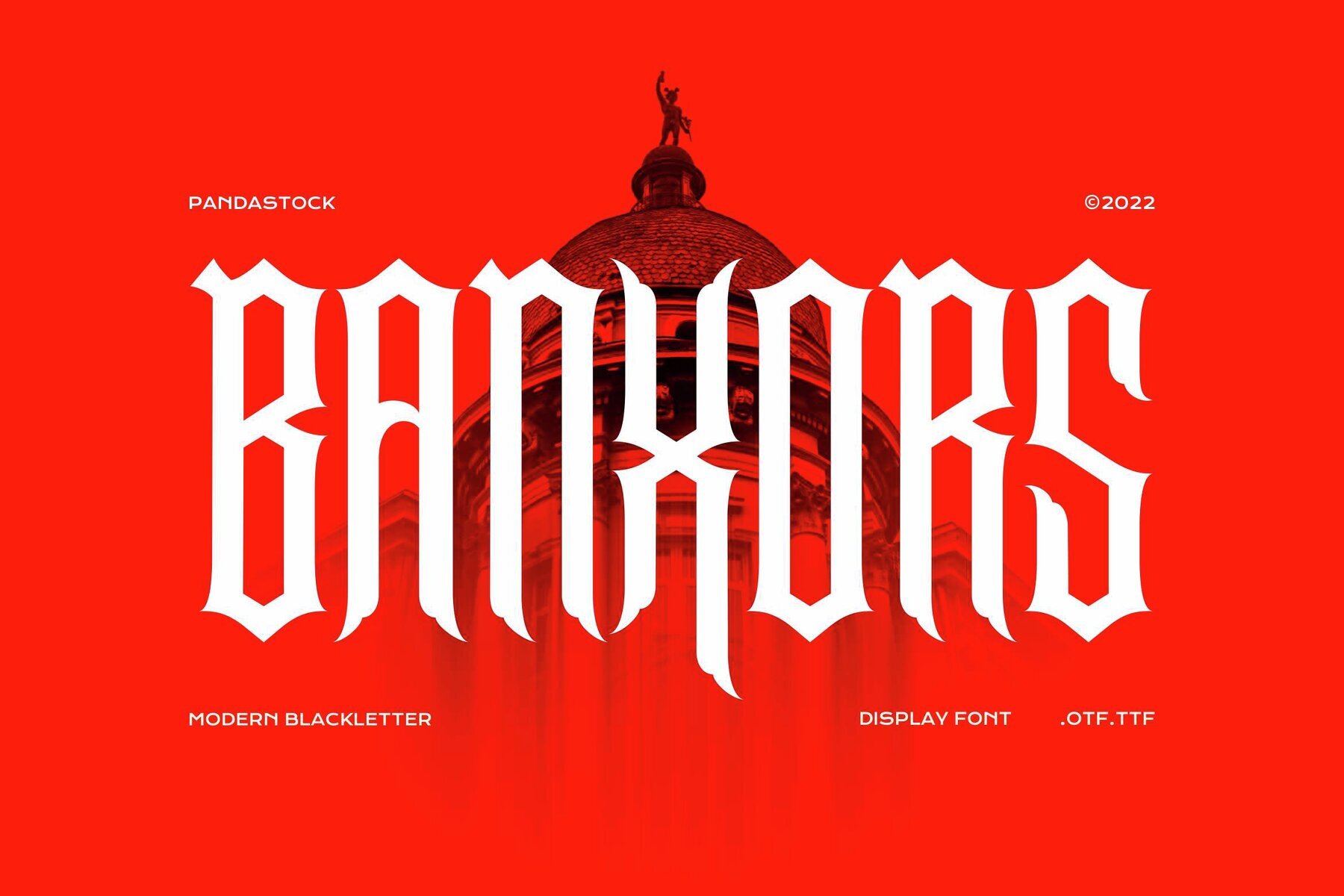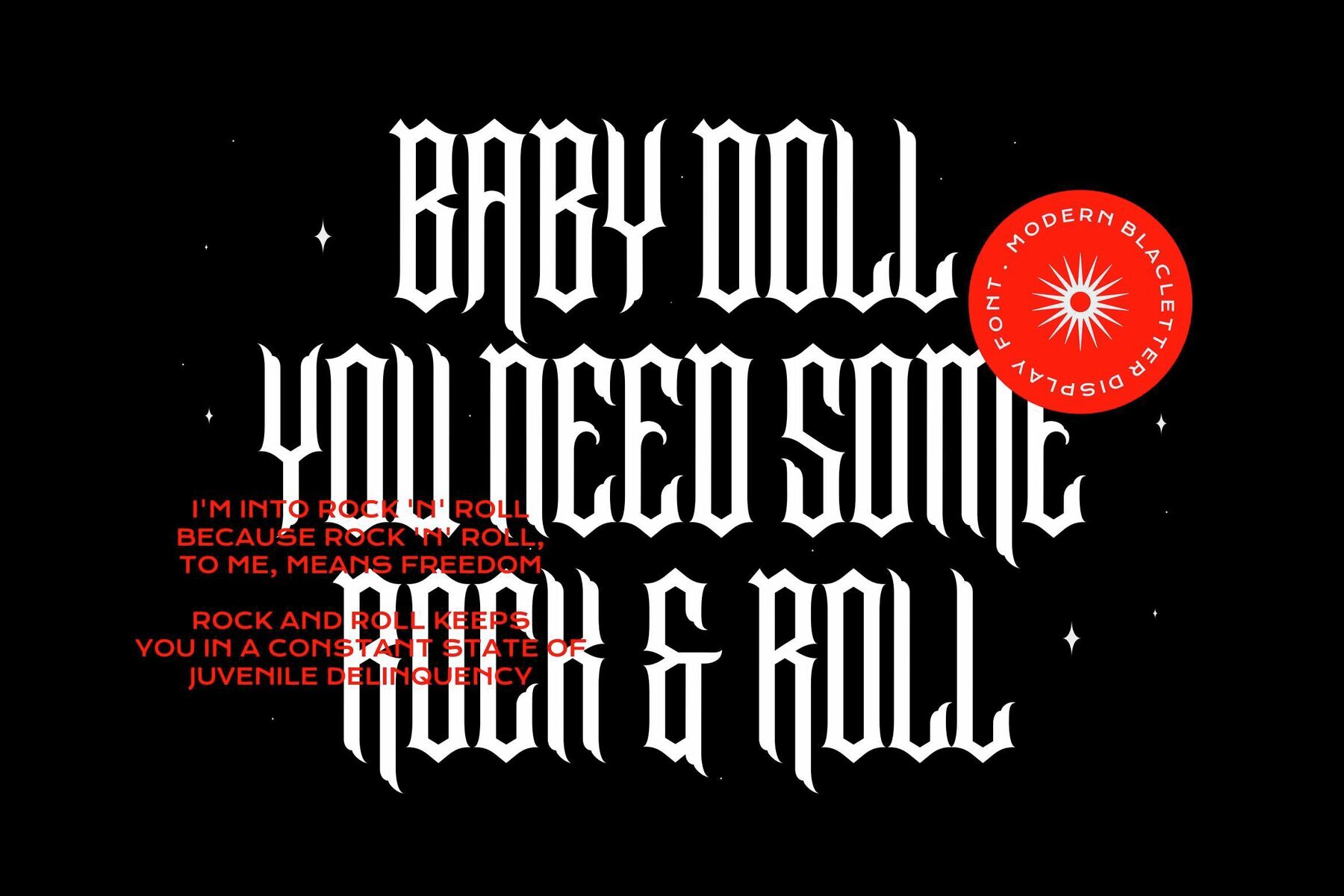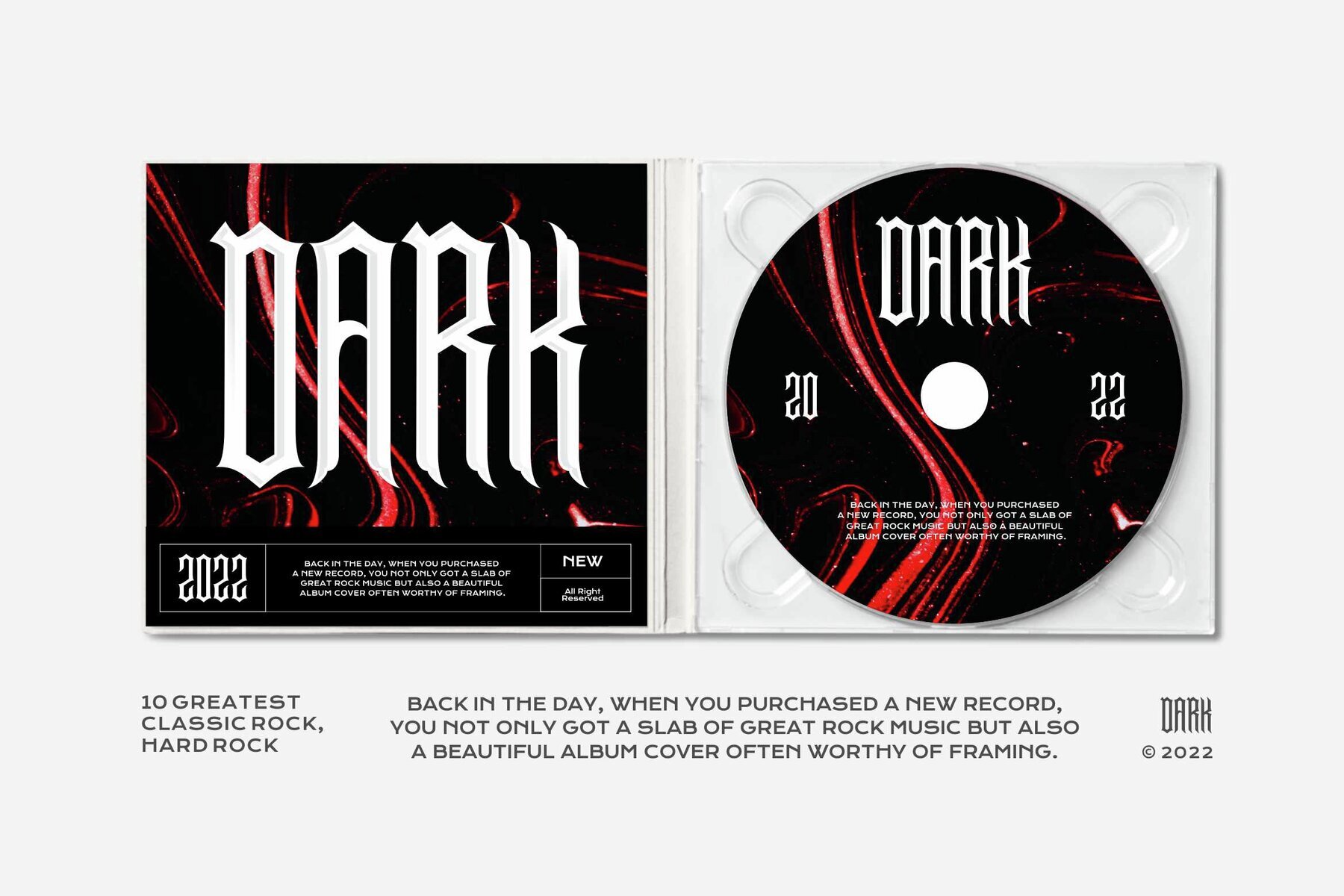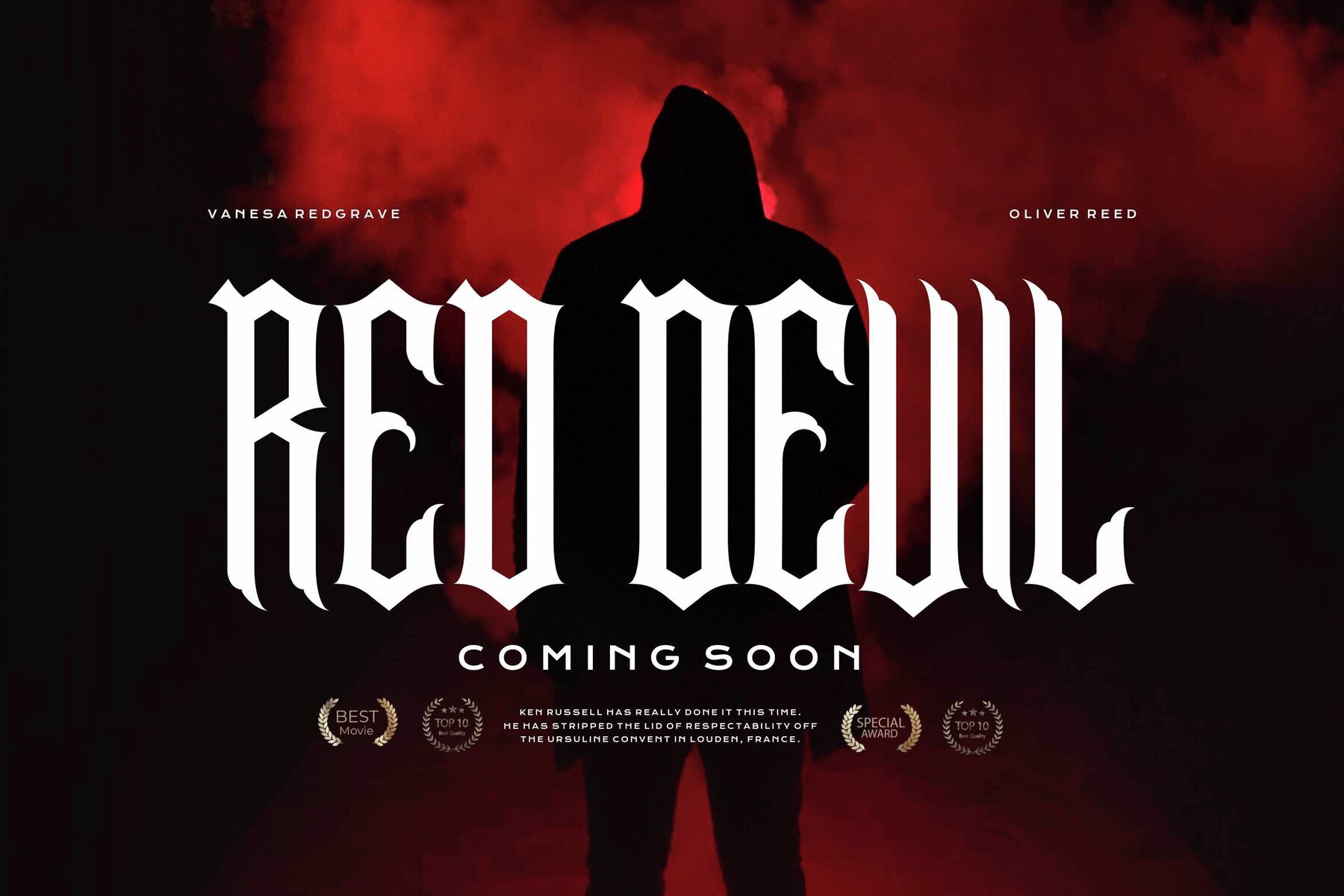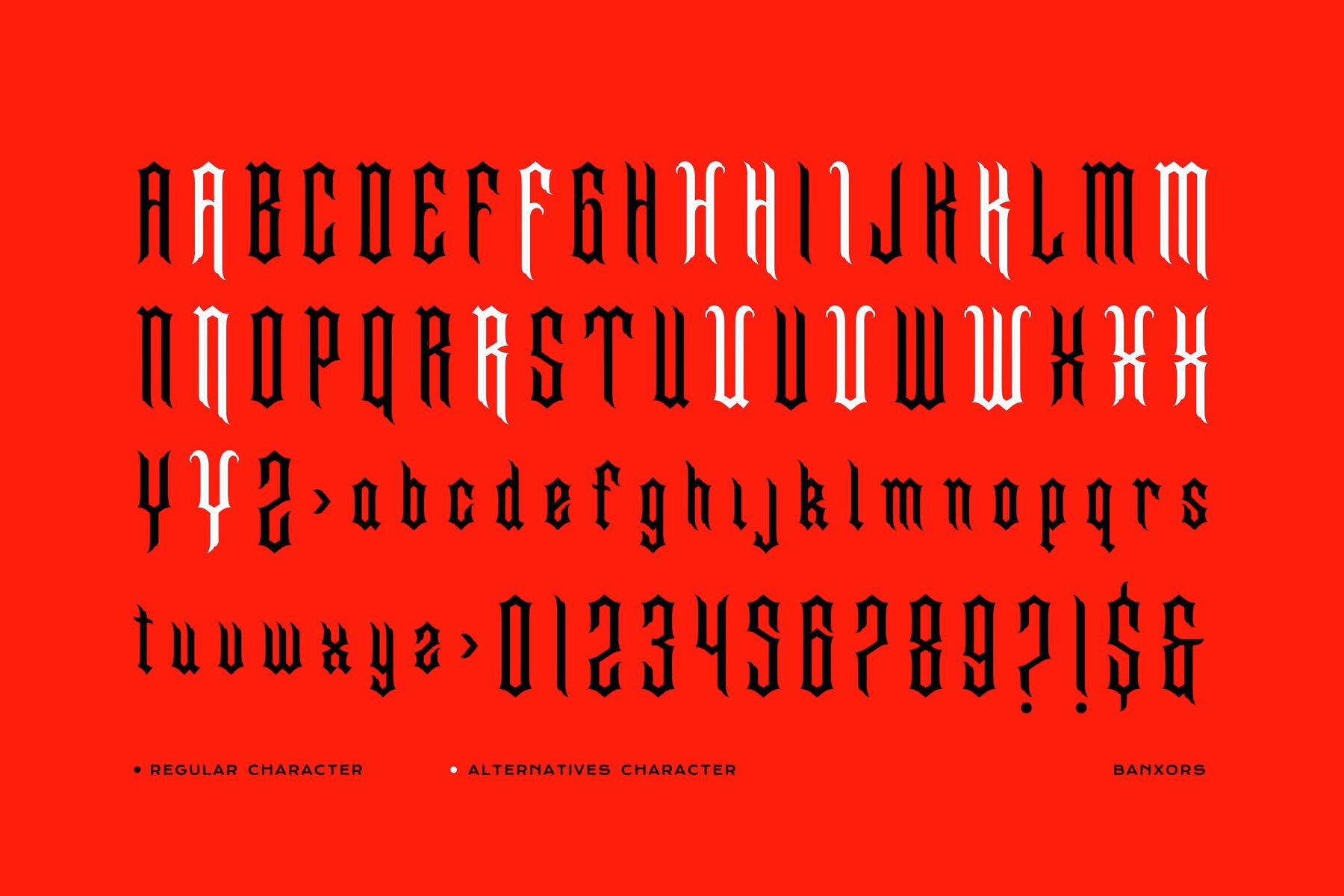
Banxors Font
Banxors Regular
Banxors captures the bold, relentless spirit of death metal with sharp, angular letterforms and striking, jagged details. Its commanding presence channels raw aggression, giving any project an unmistakable edge rooted in metal's iconic visual style. Every character is carefully shaped to communicate intensity and strength. The result is a distinctive typeface that stands out on album covers, posters, band logos, and merchandise. Banxors sets the tone for brands and apparel seeking an impactful aesthetic synonymous with metal subcultures.Banxors – Death Metal Typeface